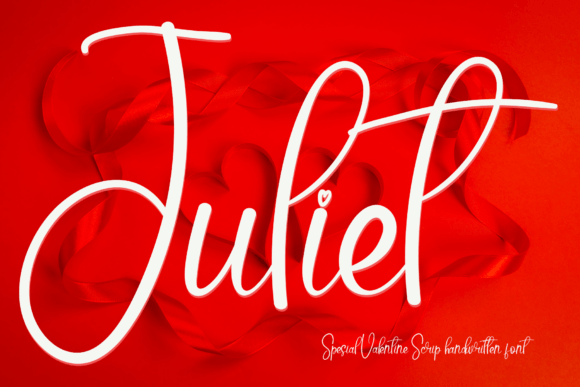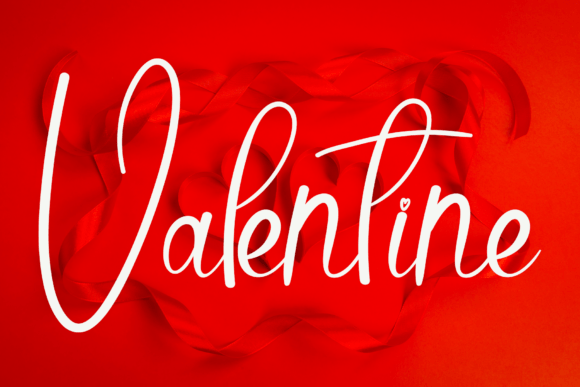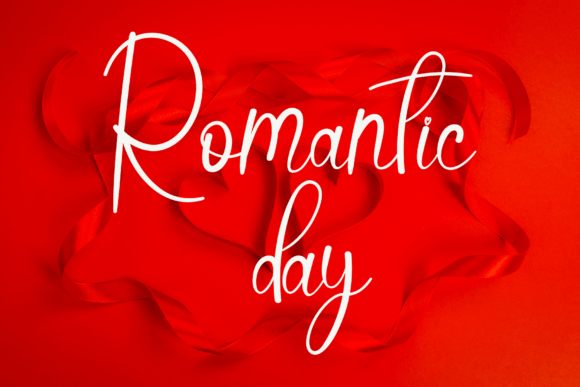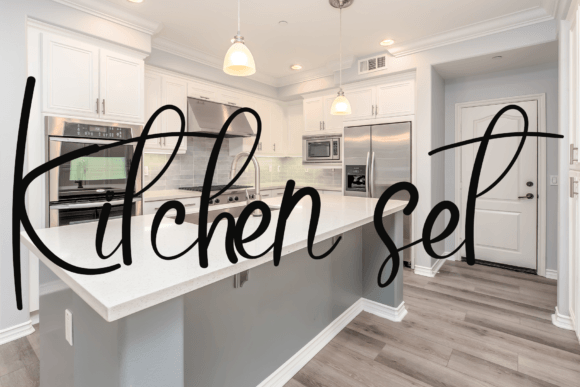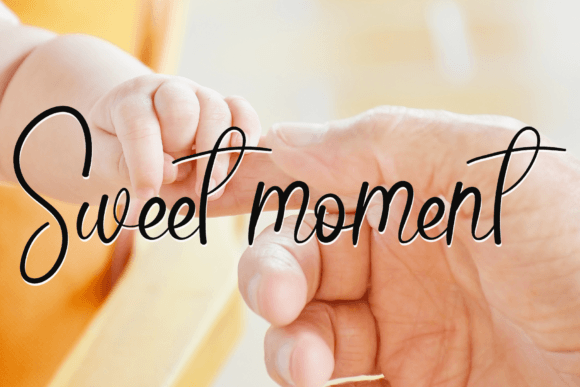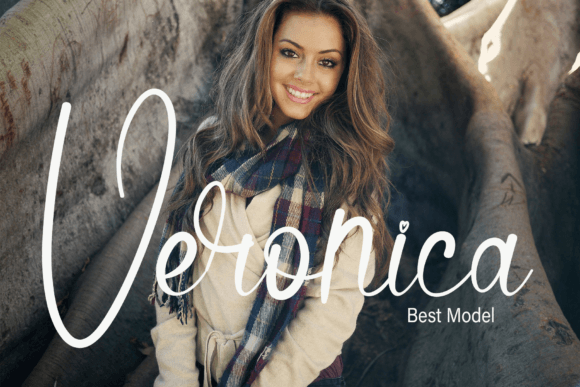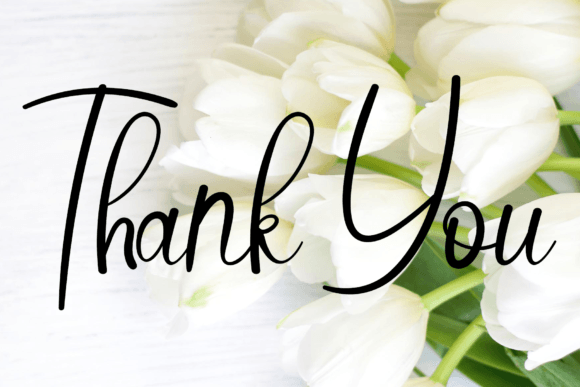
Juliet Font
What Is Juliet Font?
Juliet is a sweet and beautiful handwritten font designed to bring elegance and luxury to your creative projects. Its graceful characters dance along the baseline, adding a sense of movement and personality to your designs. Because it was crafted with care, Juliet feels both sophisticated and approachable.
You’ll love how this font instantly elevates your ideas with its timeless charm.
Juliet is an incredibly versatile font that fits perfectly into many design contexts. For example, it looks stunning on wedding invitations. Whether you’re creating formal stationery or casual save-the-date cards, this font adds a romantic, high-end feel.
It also shines in logos and branding projects. If you want your business to stand out as elegant and trustworthy, Juliet helps you create a refined visual identity that connects with your audience.
Additionally, it works beautifully on social media graphics. Whether you’re sharing inspirational quotes, promoting sales, or announcing special events, Juliet’s luxurious look will help your posts attract attention easily.
Juliet is also ideal for product packaging and labels. Its clean, flowing style makes any product feel premium and polished. From greeting cards and business cards to posters and digital templates, this font adapts smoothly to every project.
Why Should You Choose Juliet Font?
There are many reasons to make Juliet part of your font collection. First, it stays clear and legible at every size. Whether you use it for large headlines or smaller details, every letter remains crisp and beautiful.
It pairs effortlessly with simple serif or sans-serif fonts, helping you build balanced and professional layouts with ease.
Designers love how polished and graceful it looks right away, saving time while delivering stunning results.
Juliet Font brings sophistication, warmth, and personality to any project. For example, if you want your designs to feel elegant and inviting, this font makes it effortless.
Even simple layouts gain charm and energy with its dancing letters and delicate curves. Whether you are designing invitations, product labels, or social media graphics, your work will feel refined and professional.
Using a premium handwritten font also shows your attention to detail and helps you make a memorable impression.
Juliet is more than just a typeface—it’s a creative companion that adds beauty and elegance to every project. From wedding invitations and logos to packaging and digital graphics, this font adapts easily and elevates your designs.